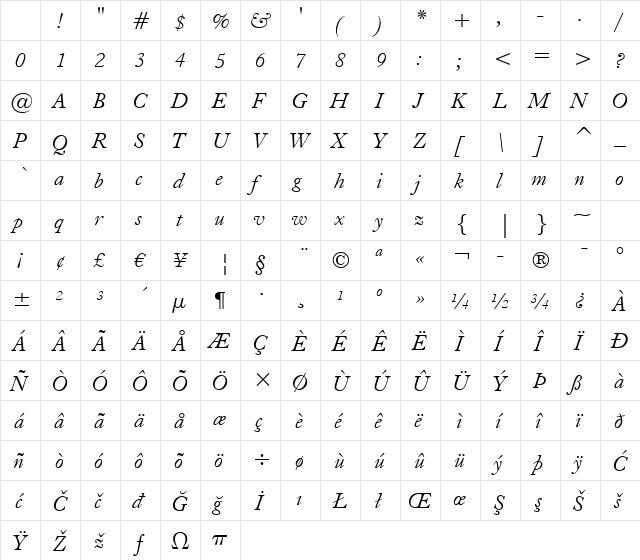
Complete CaslonOldFace BT Italic glyph index. Displaying only characters natively supported by CaslonOldFace BT Italic font.
CaslonOldFace BT is a composed and adaptable typeface that performs quietly and consistently across a wide range of design contexts. The slanted form adds forward momentum and visual energy.